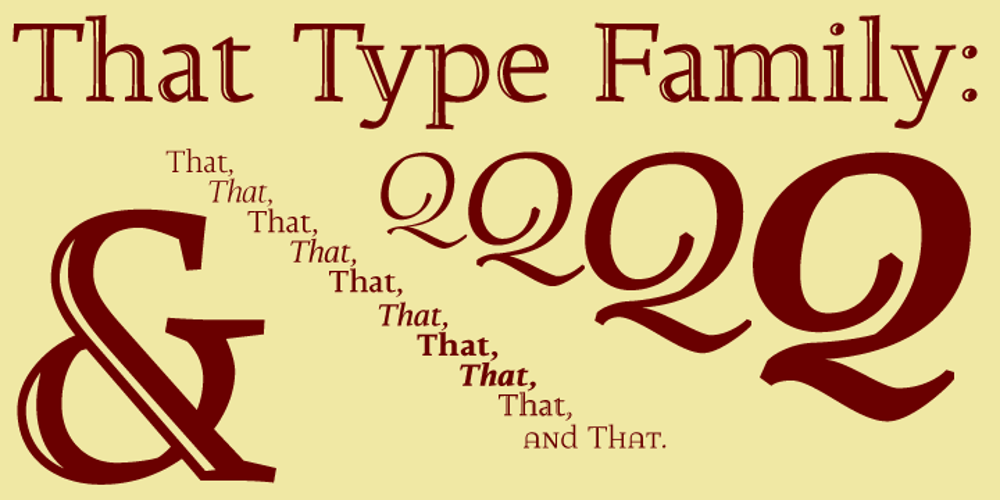
That
That font
That Font Family was designed by Tomi Haaparanta and published by Suomi. That contains 10 styles and family package options. This is That: a family of four weights with roman and true italics, and also with chiselled medium weight, and Irregular variant for, well, variety.